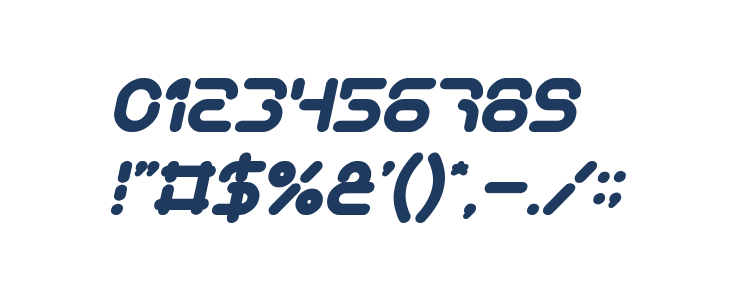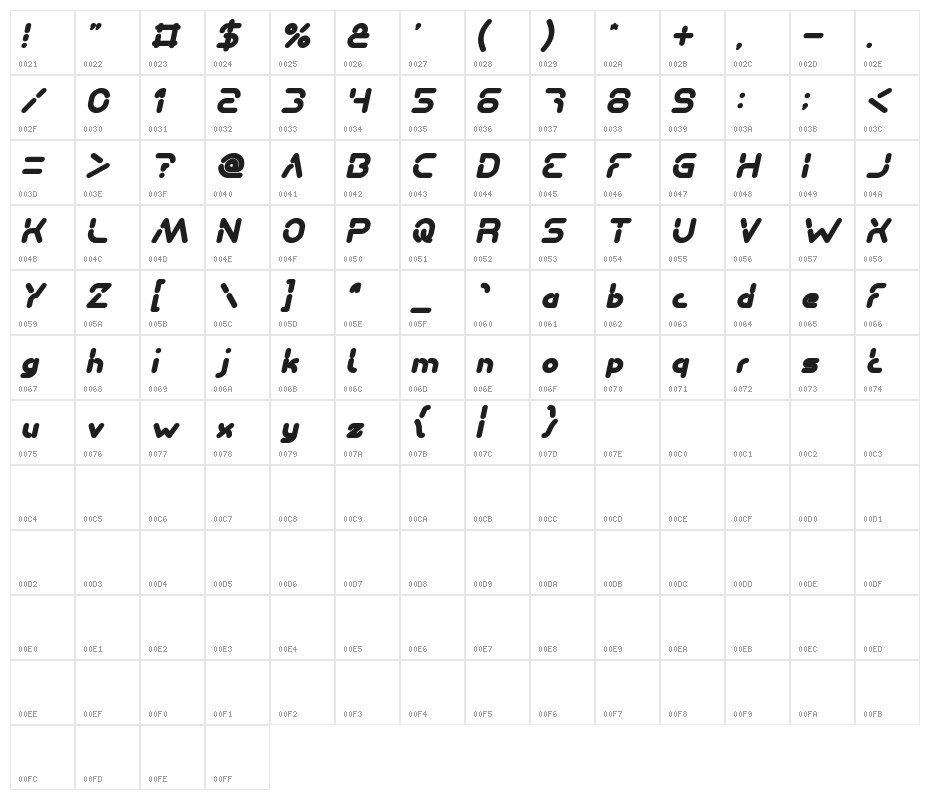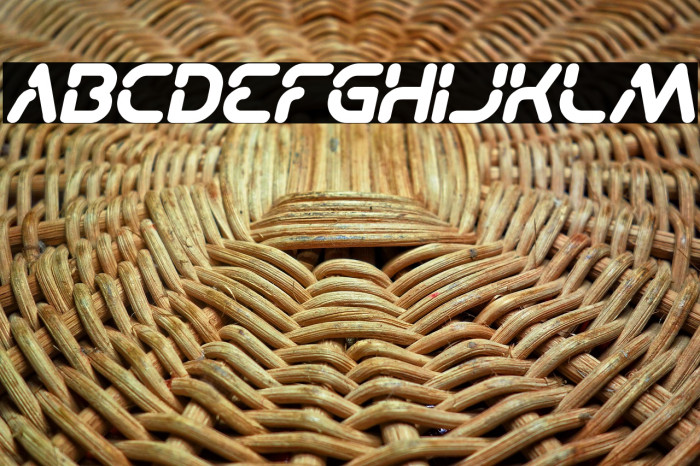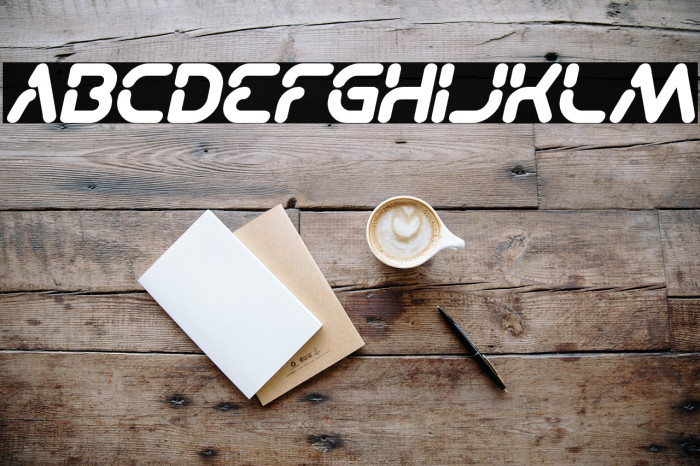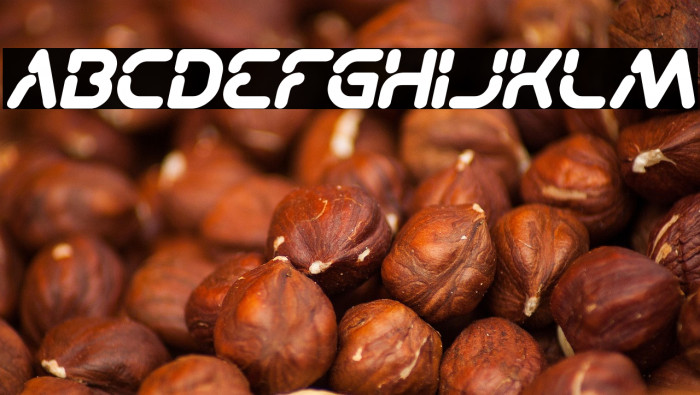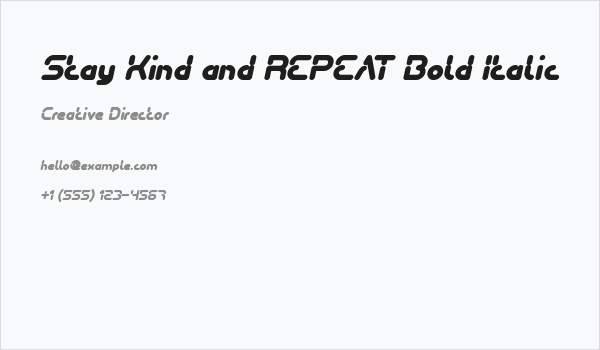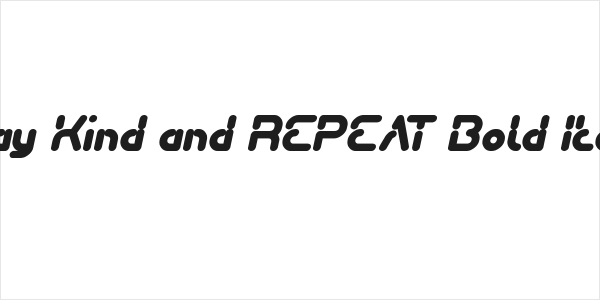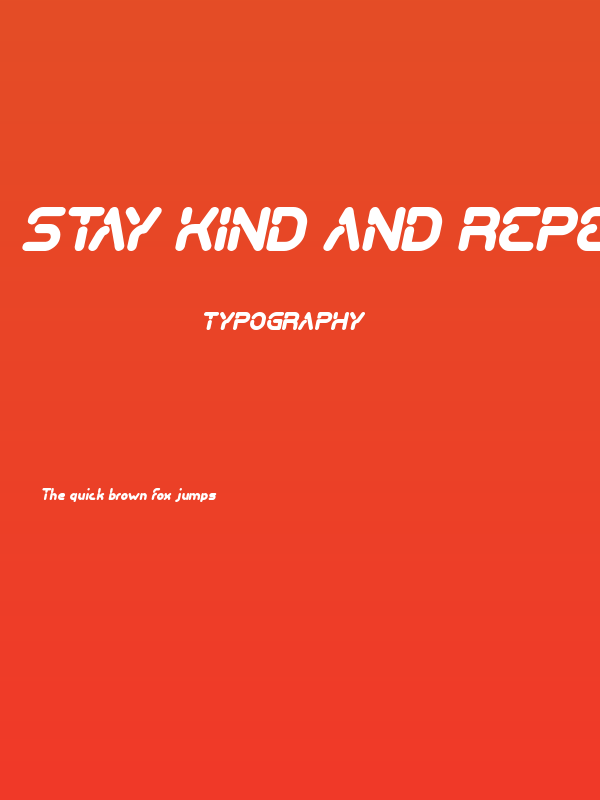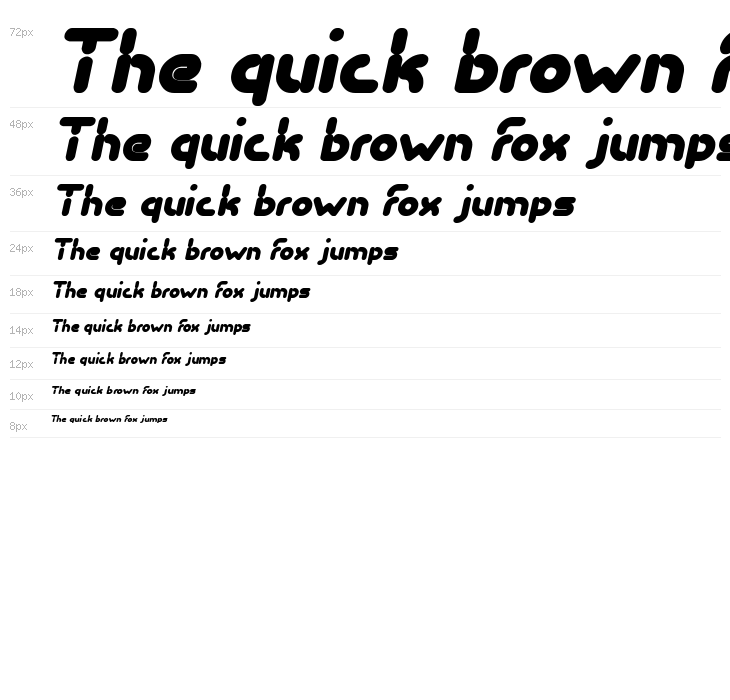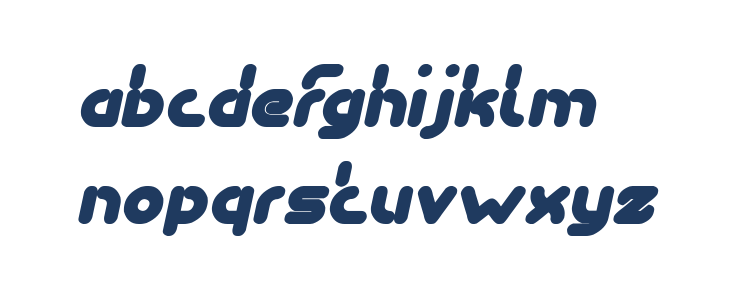
Stay Kind and REPEAT Bold Italic Font
Stay Kind and REPEAT Bold Italic Description
This font exhibits a bold and italicized style with a modern and futuristic appearance. The characters are rounded and connected, giving a sense of fluidity and motion. The uppercase and lowercase letters maintain a consistent style, with a slight slant that enhances the italic effect. The numbers and special characters are designed to match the overall aesthetic, ensuring uniformity across all glyphs. The font's bold weight and unique design make it stand out, while the rounded edges soften its appearance, making it approachable and friendly.